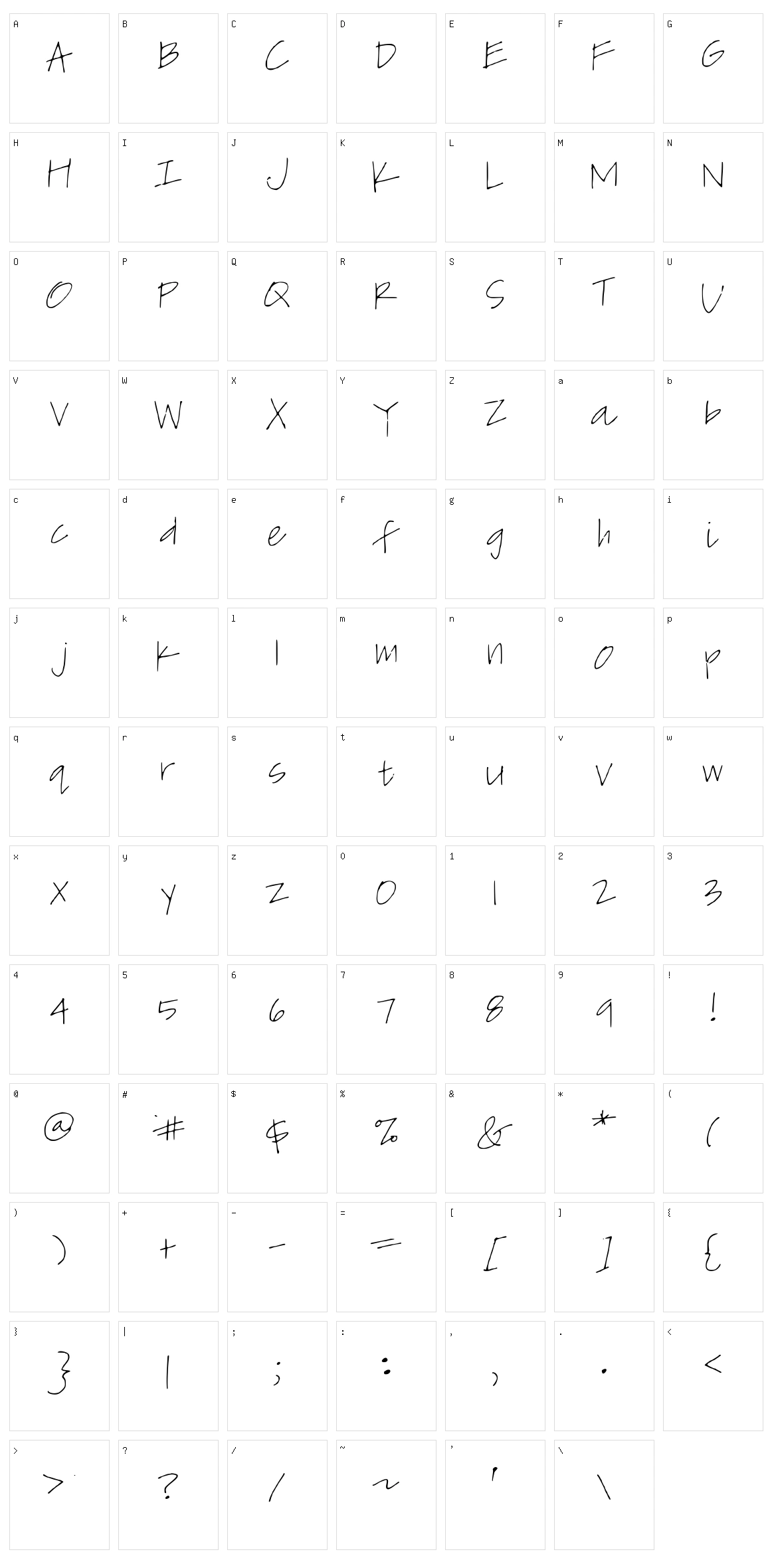
The free font Daily Natalie is carefully designed by Nataile Cooper, showcasing a thoughtful balance of creativity and usability and falls under the Script font style. When you download the ZIP file, it contains only 23.23 KB of font files, making it lightweight and quick to download. Please review the license details below to understand permitted usage and distribution rights. If license information is not available, we recommend using this font for personal projects only or contacting the author directly for commercial usage permissions.